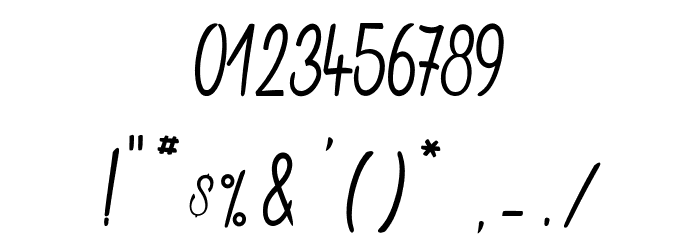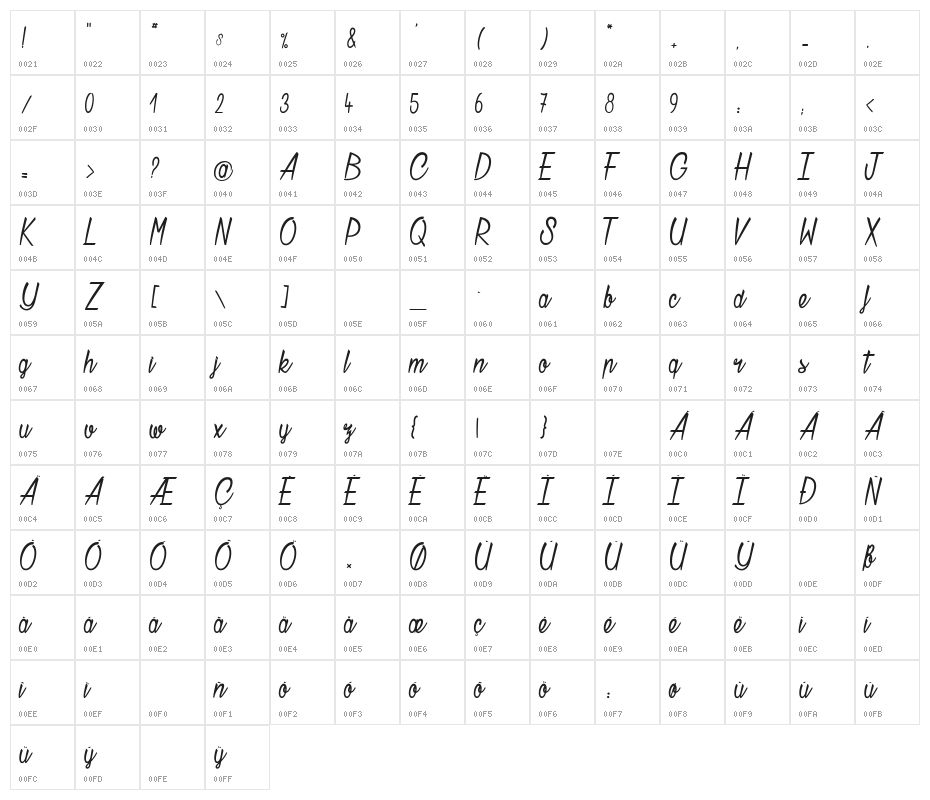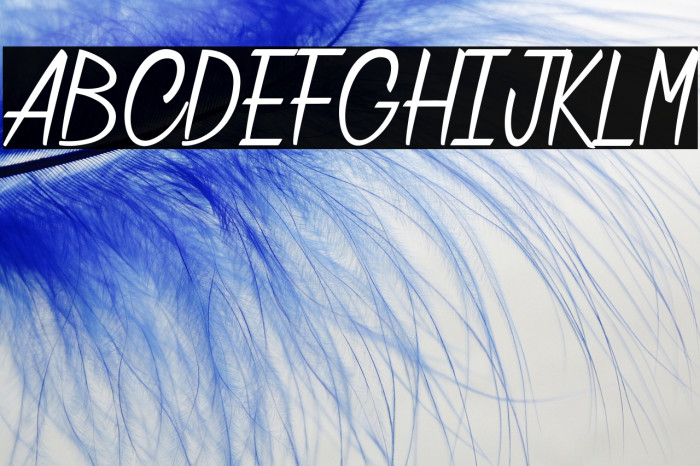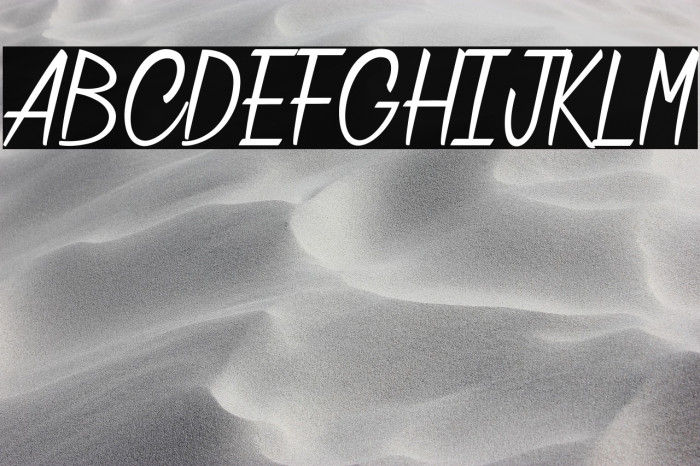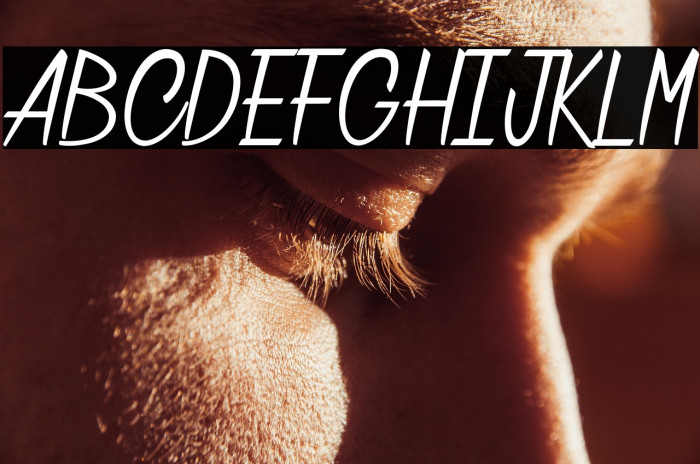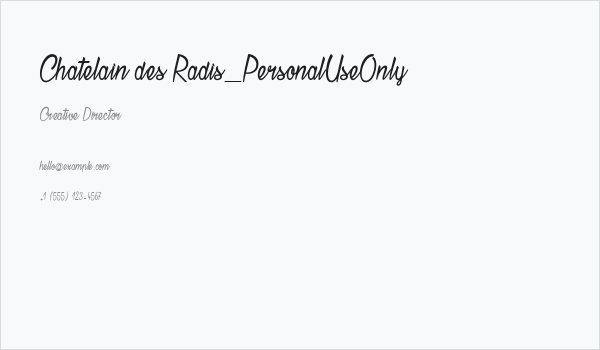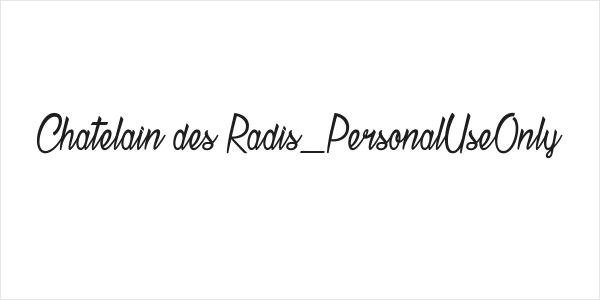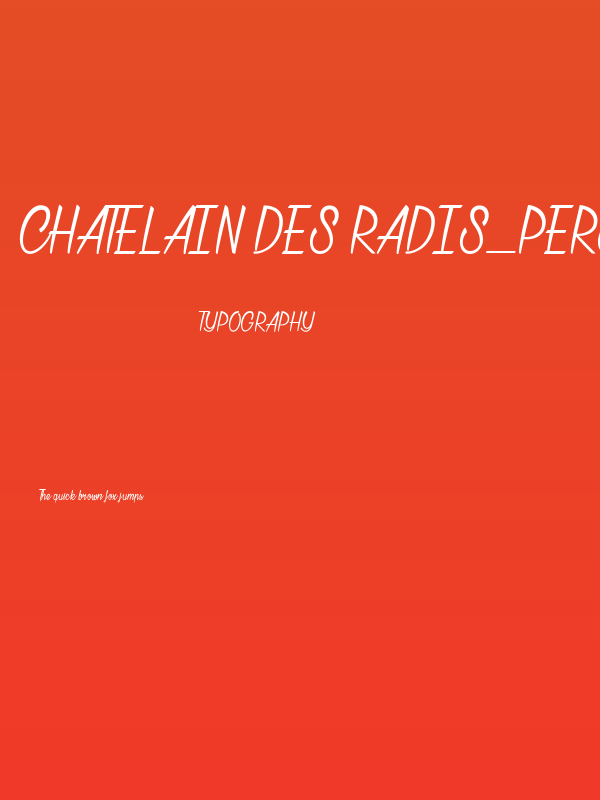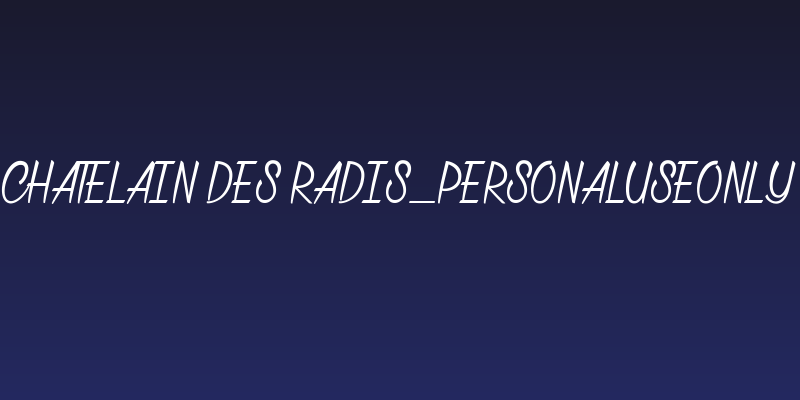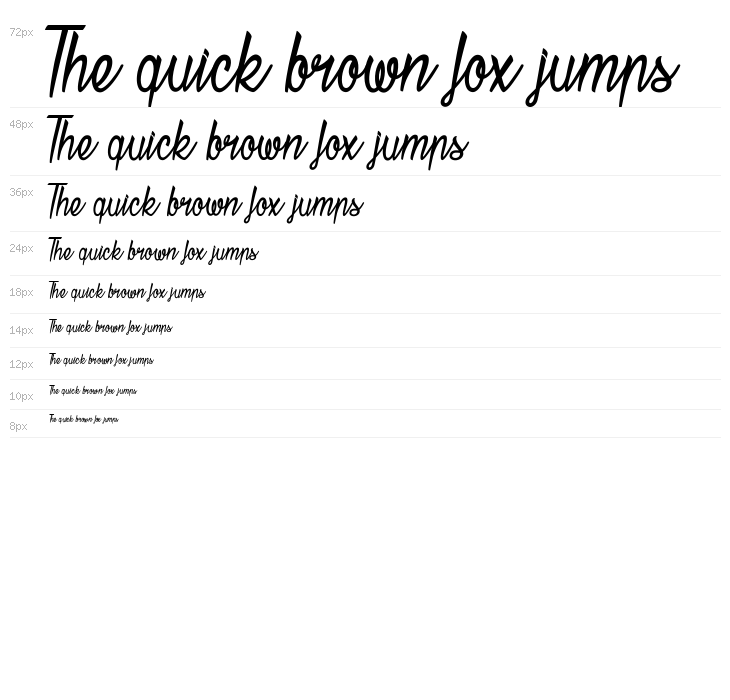
Chatelain des Radis_PersonalUseOnly Font
Chatelain des Radis_PersonalUseOnly Description
This font exhibits a dynamic and flowing script style, characterized by its elegant and slightly slanted letterforms. The uppercase letters are tall and slender, with a consistent stroke width that adds to its graceful appearance. The lowercase letters maintain a cohesive look, with smooth curves and a natural handwriting feel. The numerals are well-proportioned and align seamlessly with the overall aesthetic. Special characters are thoughtfully designed, complementing the font's sophisticated style. This font exudes a sense of movement and fluidity, making it ideal for projects that require a touch of elegance and personality.
| Proposed Projects | Ideal for wedding invitations, greeting cards, branding, and elegant packaging designs. |